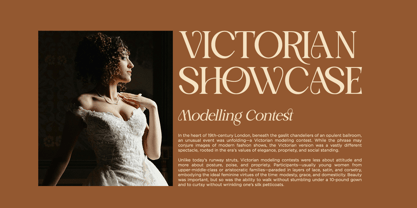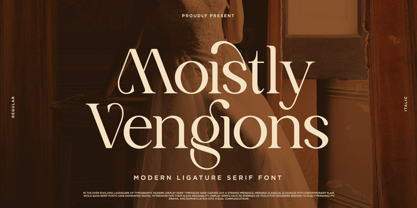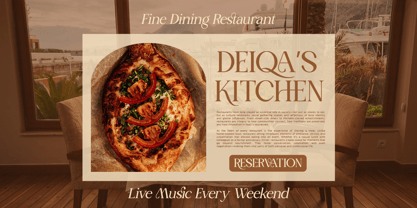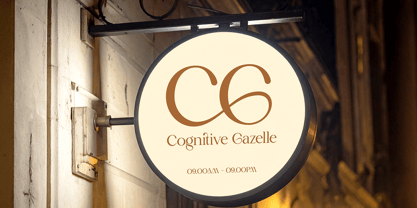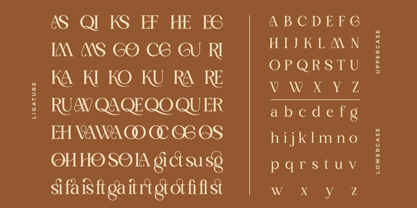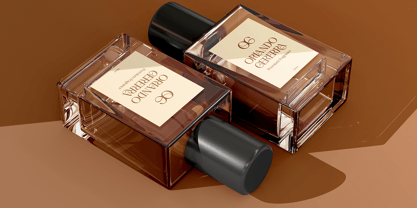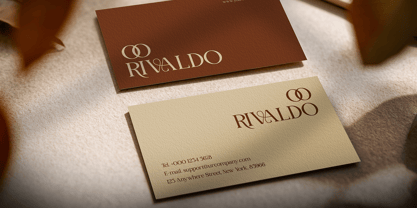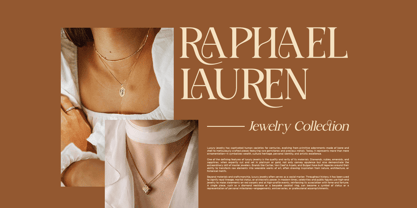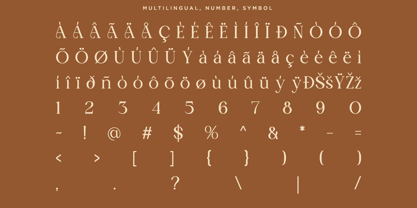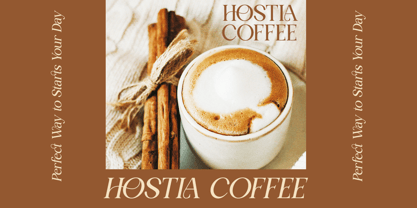
Moistly Vengions
by RagamKata
The Moistly Vengions Font Family was designed by Yogiswhara Dio Prakoso Riadi and published by RagamKata. Moistly Vengions contains 2 styles and family package options. More about this family
Introducing Moistly Vengions, a sophisticated modern ligature serif font that blends classical beauty with bold contemporary elegance. Crafted for designers who crave a luxurious and refined aesthetic, Mostly Vengions brings high fashion flair to any creative project. Perfect for Editorial Layouts, Luxury Branding, Wedding Invitations, Headline, Tagline, Tittle, Fashion Campaigns, Social Media, Packaging, etc. What You'll Get : - Moistly Vengions Regular - Moistly Vengions Italic - Stylish Ligatures - Multilingual Support - Number, Symbol. Thank You for Your Visit ! Ragamkata Studio